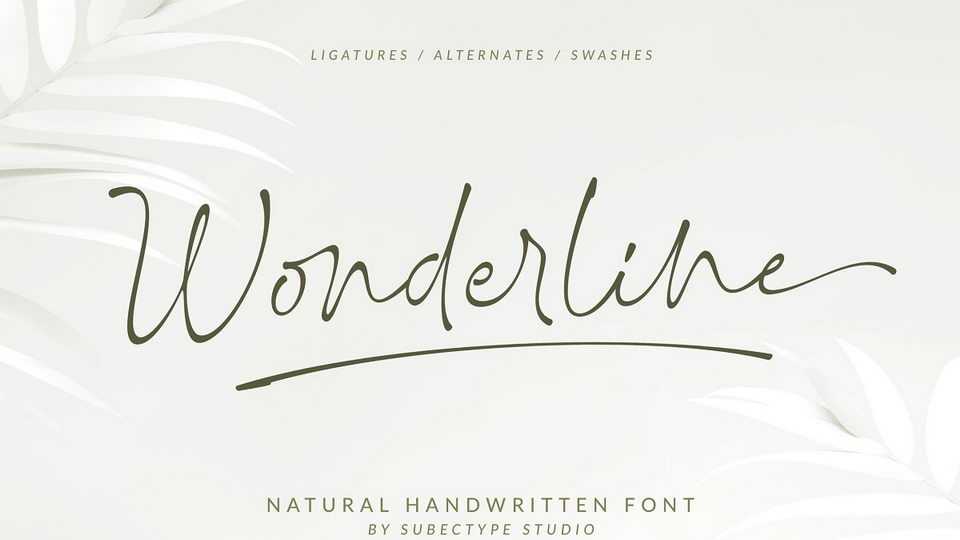
Download Wonderline font, a luxury modern calligraphy script with a touch of handwriting style. Wonderline is perfect for creating signature logos and watermarks for photography studio or wedding invitation.
Designer: Subectype